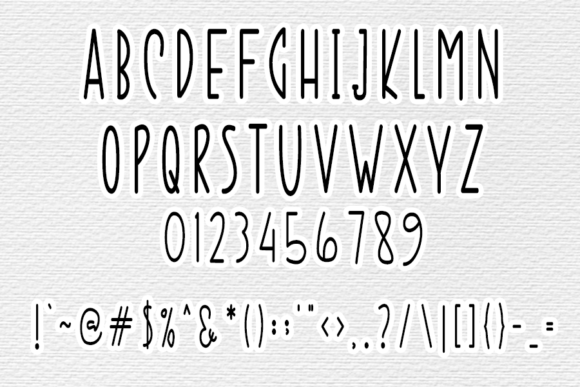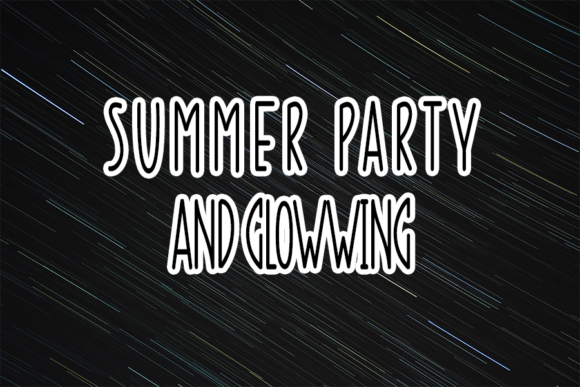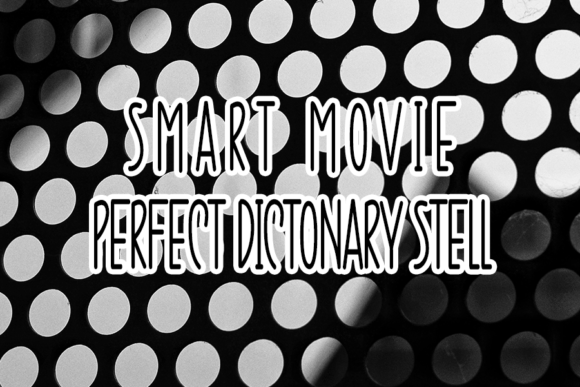
Introduction to Forest Carnival Font
Forest Carnival is a whimsical handwritten font carefully created with a touch of elegance.
This is a beautiful combination of timeless elegance and authentic calligraphy With its neat and beautiful arrangement of letters, this typeface will look outstanding in both formal and non-formal designs.
Why Choose Forest Carnival Font?